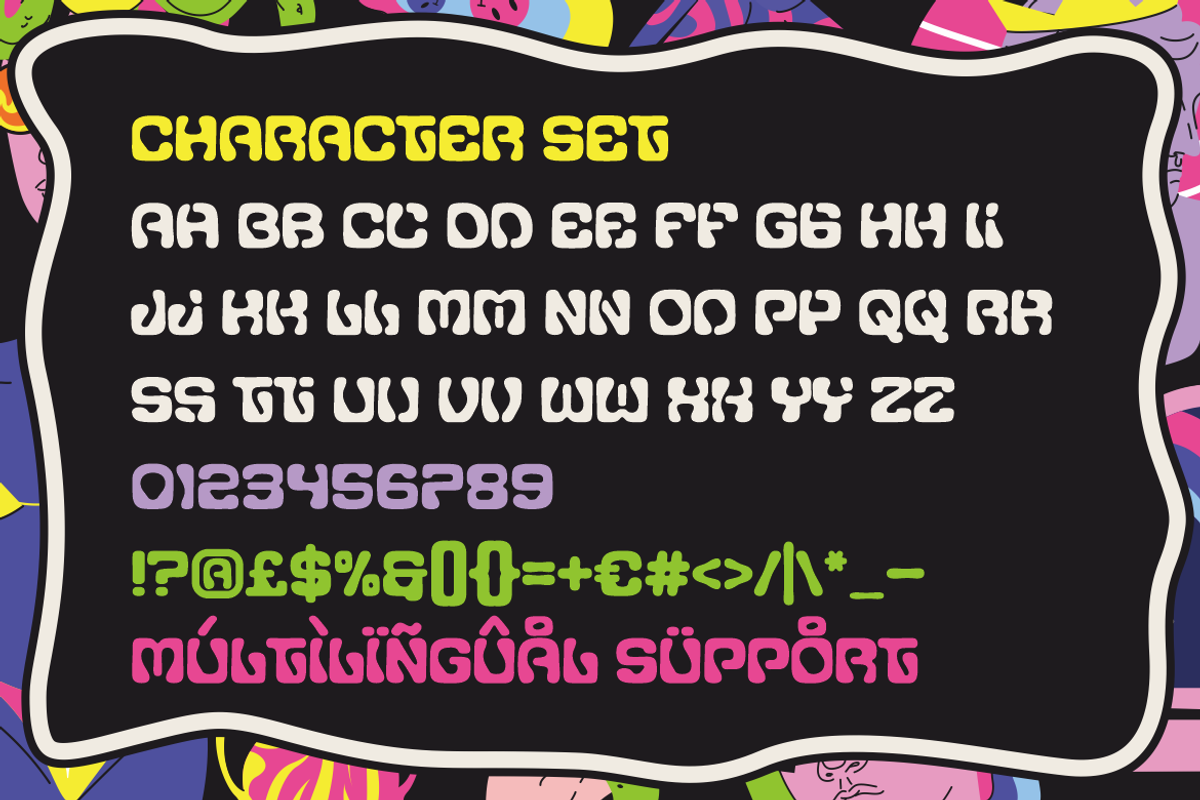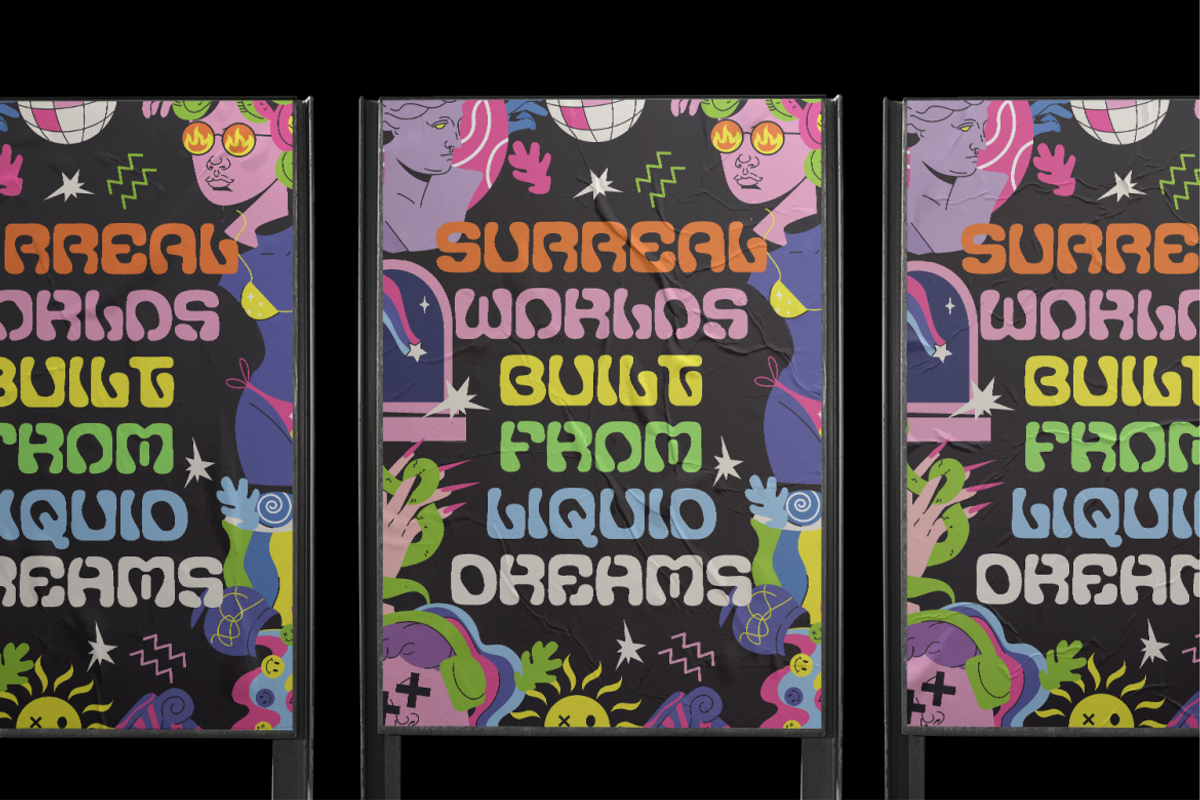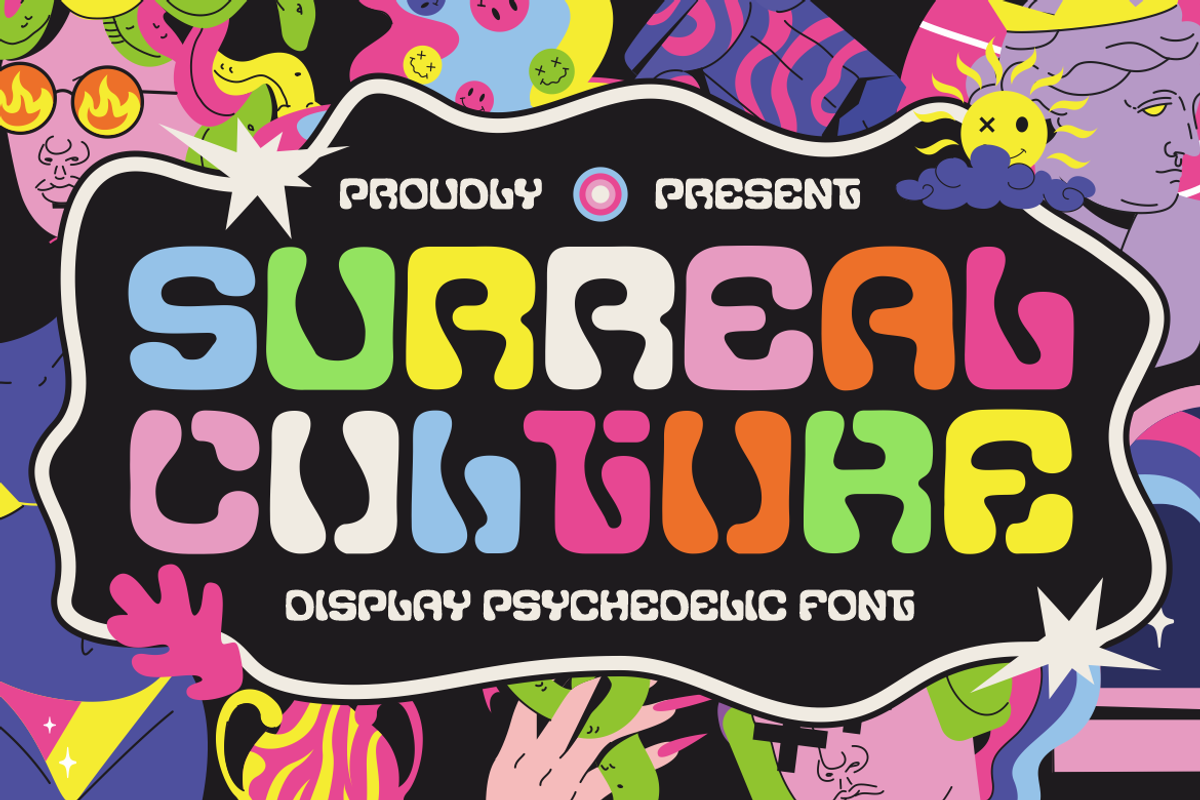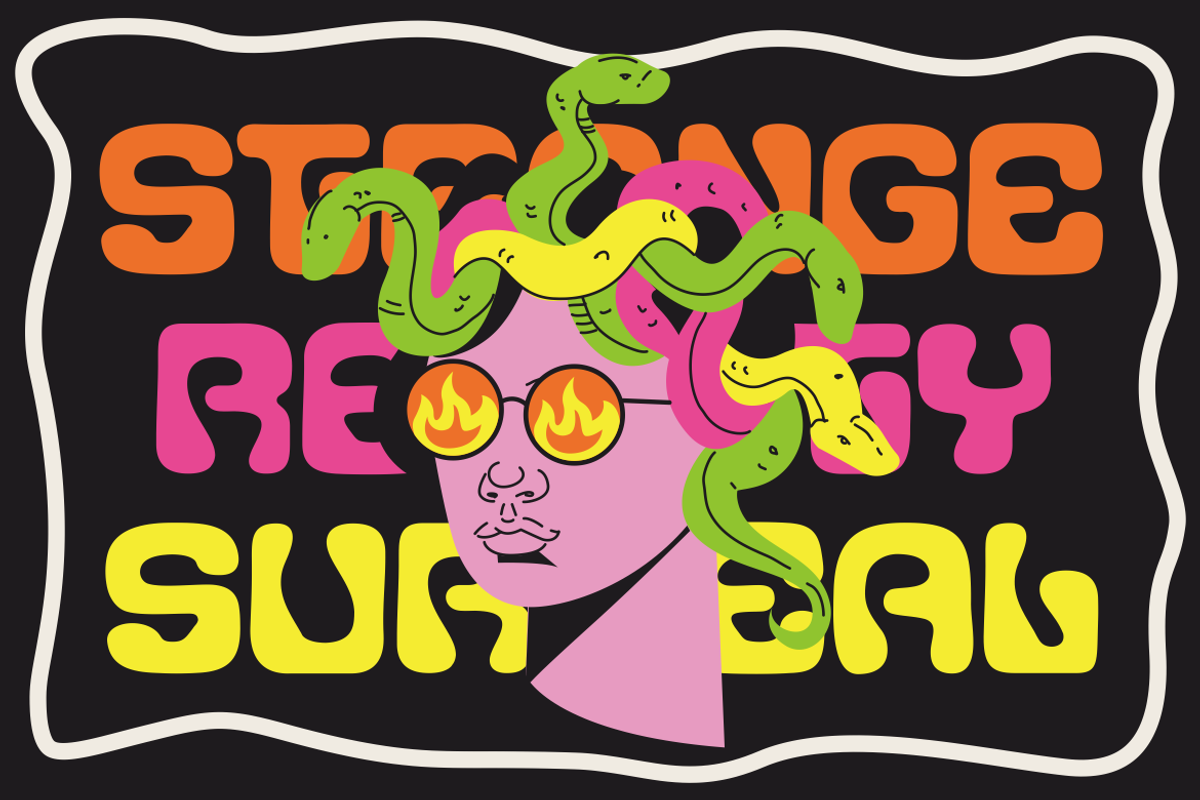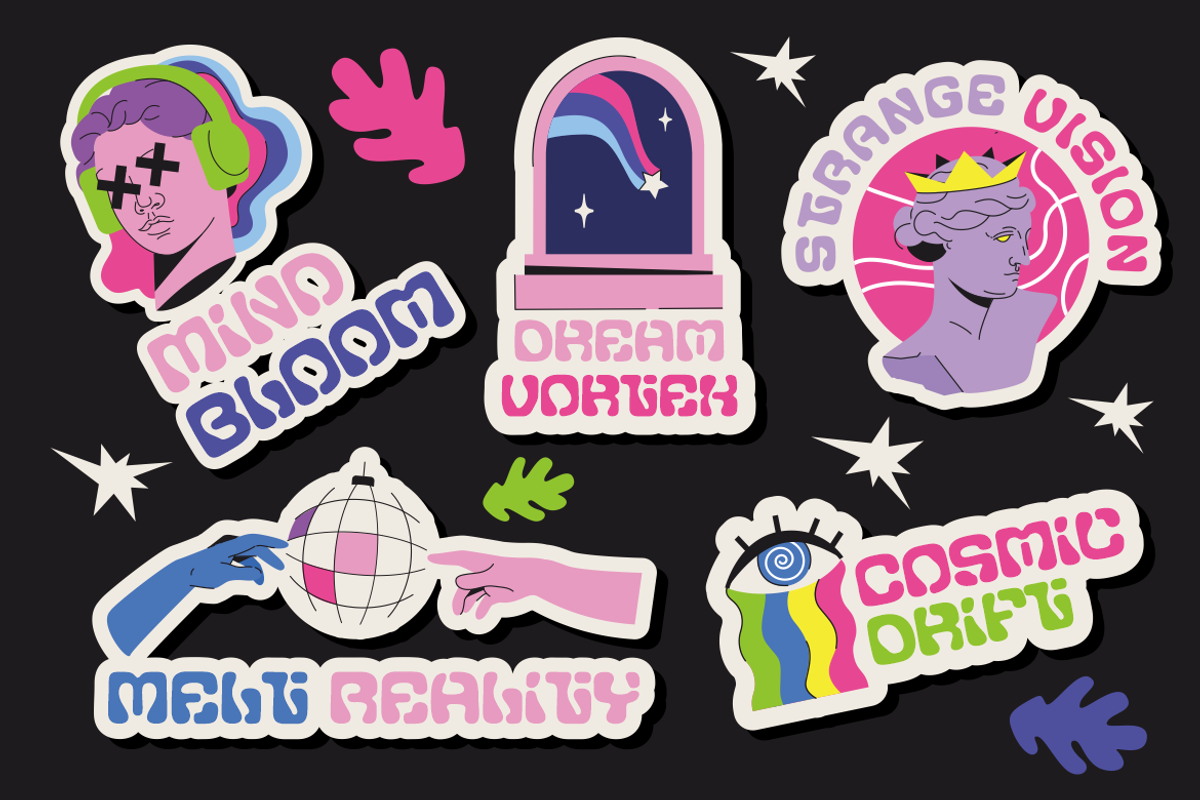
Surreal Culture Display Psychedelic
Surreal Culture Display Psychedelic Font brings rounded letterforms, unusual curves, and playful internal shapes. The structure feels expressive, surreal, and strongly connected with psychedelic culture and retro creativity. Its chunky forms create immediate impact for logo design, branding, poster headlines, and advertising campaigns. The font works especially well for music branding, art projects, creative studios, youth events, and cultural campaigns. Designers can also use it for magazine covers, book covers, stickers, product packaging, and promotional graphics that need a lively personality.
Its visual language fits businesses and projects inspired by vintage culture, retro graphics, 80s themes, and experimental art. The font suits music festivals, record labels, creative agencies, art galleries, event branding, and entertainment businesses. It can also support café branding, beverage products, candy packaging, lifestyle products, and novelty shops with playful identities. Rounded characters make short names memorable, while irregular details create a handmade cultural mood. Surreal Culture Display Psychedelic Font also works for film titles, social advertising, gallery posters, and festival merchandise graphics.
Beyond psychedelic projects, the font can support broader creative industries that need expressive visual branding. Use it for fashion campaigns, beauty promotions, photography projects, youth magazines, game branding, and digital media. It also fits party invitations, greeting cards, craft projects, product labels, packaging, business promotions, and event posters. The character set supports uppercase, lowercase, numbers, punctuation, and multilingual text for flexible layouts. Its playful energy helps brands create recognizable identities across print, digital campaigns, packaging, editorial design, advertising, and social media.